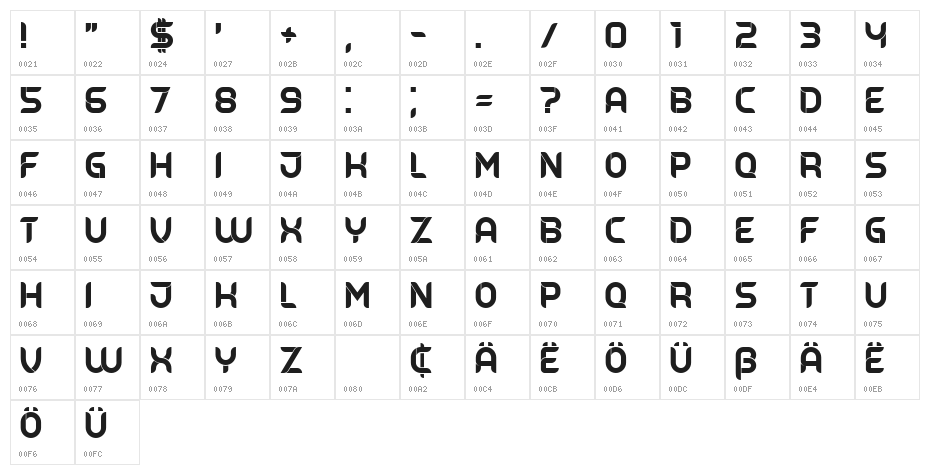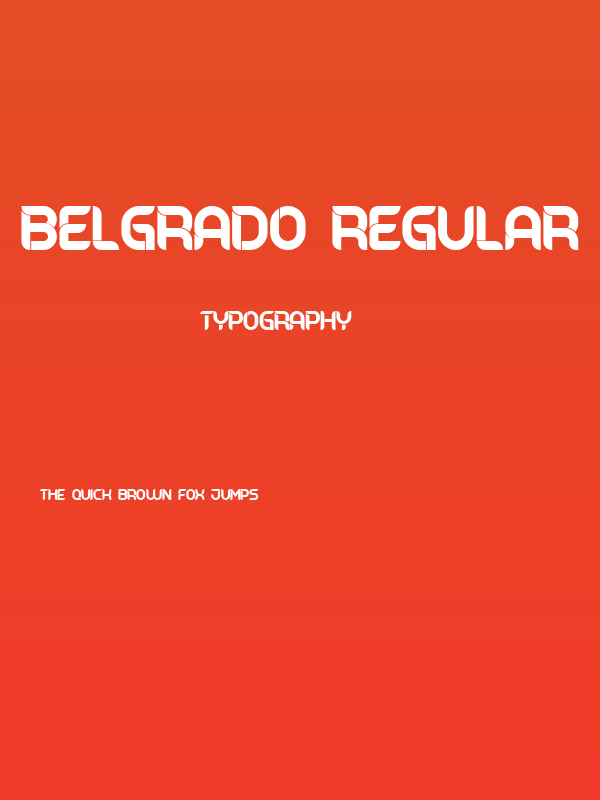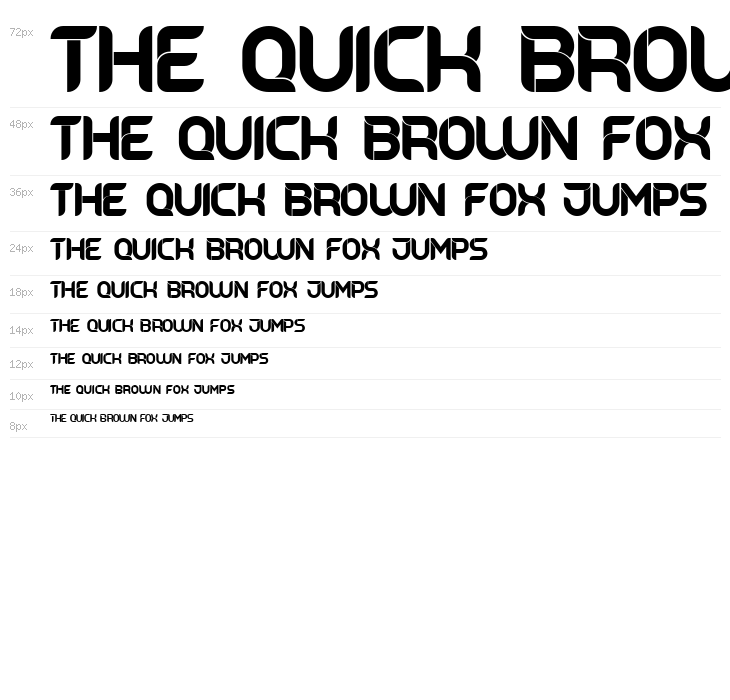
Belgrado Regular Font
Belgrado Regular Description
This font features a bold, geometric design with a futuristic flair. The characters are constructed with thick, uniform strokes that create a sense of solidity and strength. The unique cut-out sections within each letter add a modern, dynamic touch, making it stand out in any design. The font maintains a consistent weight throughout, ensuring readability while adding a distinctive style. Its bold presence is ideal for making a strong visual impact.
| Proposed Projects | Ideal for branding, posters, headlines, and any project requiring a modern, bold statement. |